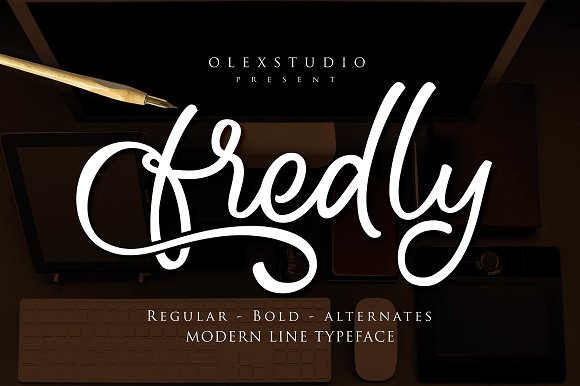
Dive into the enchanting world of script typography with Fredly Font, an extraordinary handwritten masterpiece crafted by Olexstudio. This mesmerizing font exudes a touch of elegance and charm that will bring your creative visions to life.
Fredly Font boasts a fluid and graceful design that effortlessly adds a personal touch to every project it adorns. Its easy-to-read nature makes it a perfect choice for marketing and branding materials, ensuring that your message is conveyed with clarity and impact. Whether you're crafting brochures, flyers, or eye-catching logos, Fredly Font has got you covered.
Step into the realm of craft projects with Fredly Font as your trusty companion. Let your imagination run wild as you create stunning cards, invitations, and personalized gifts that leave a lasting impression. The font's enchanting flow will captivate your loved ones, adding a touch of heartfelt elegance to every creation.
Fredly Font's versatility extends far beyond traditional applications. Unleash your inner artist and experiment with digital designs, social media graphics, and eye-catching website elements. Infuse your online presence with a touch of individuality and captivate your audience with every post and update.
With Fredly Font, the possibilities are endless. Its user-friendly nature makes it accessible to designers of all skill levels, allowing you to effortlessly transform your creative ideas into stunning realities. Join the community of satisfied users who have embraced Fredly Font's charm and witnessed their projects flourish.